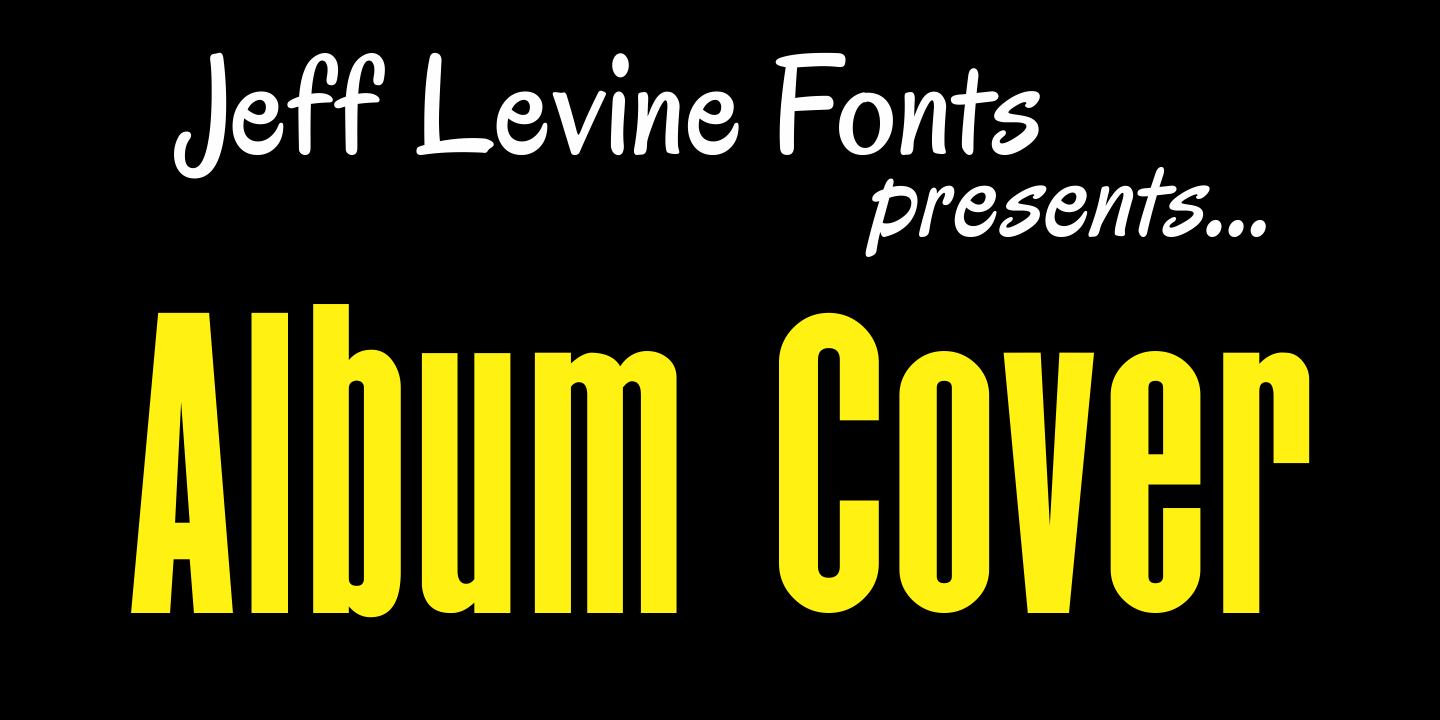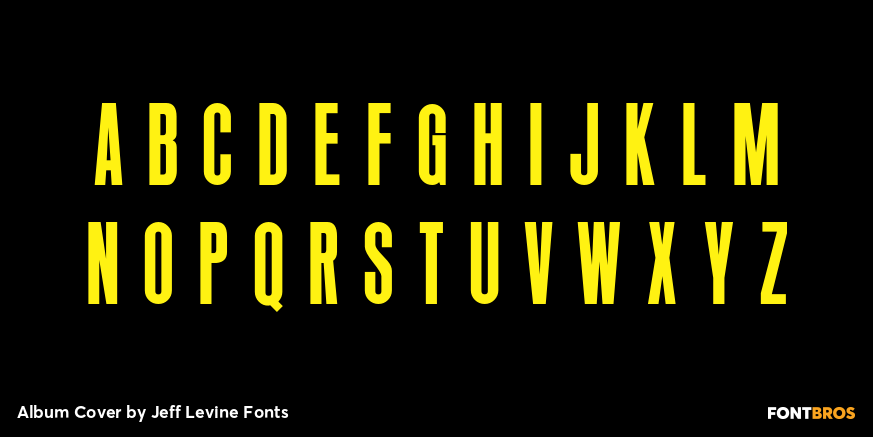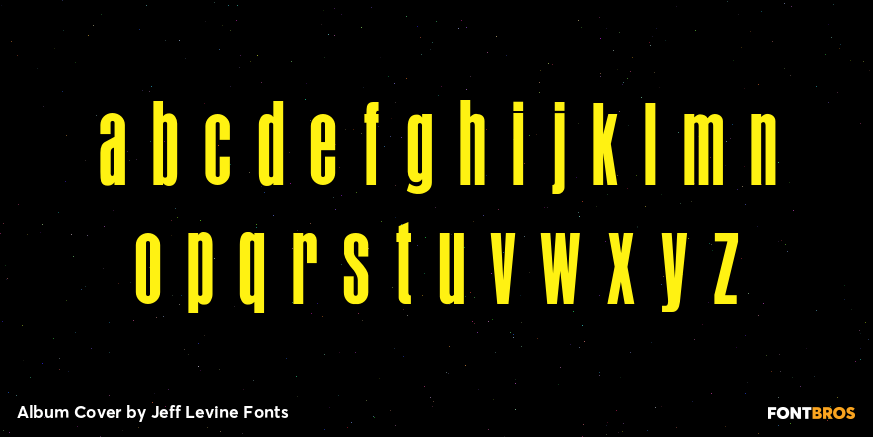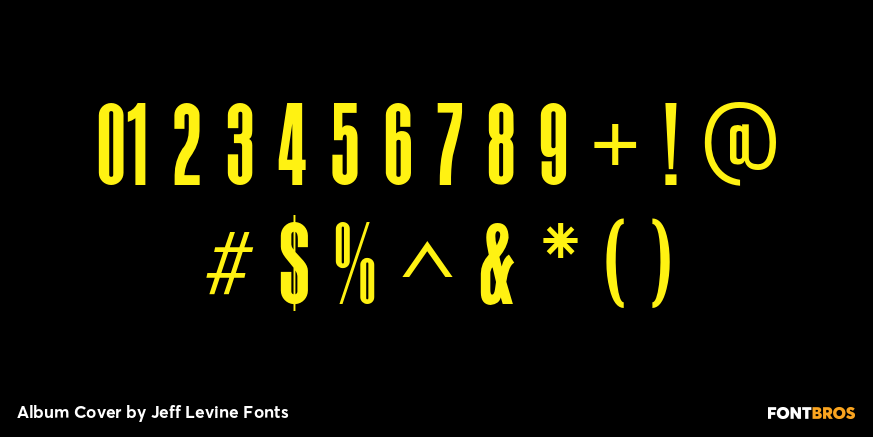
Album Cover
An older typeface belonging to a family of sans serif fonts known as Grotesque (or Grotesk in the classic spelling) has been re-drawn by Jeff Levine and released as Album Cover JNL. The font's name is derived from the fact that this typeface was found on many long-playing record jackets during the 1950s and 1960s.
To add a look closer to that of hand-set type, there are minute variants in some of the heights of the characters.